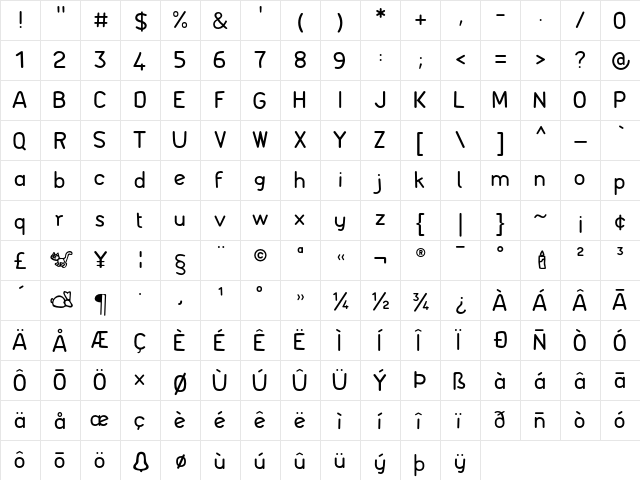
FontSoupGerman Regular Font Preview
FontSoupGerman Regular
FontSoupGerman Regular Font Details
Design Context for FontSoupGerman Typeface
FontSoupGerman takes a measured approach to typography — its balanced proportions and neutral character make it a reliable workhorse for both digital and print work.